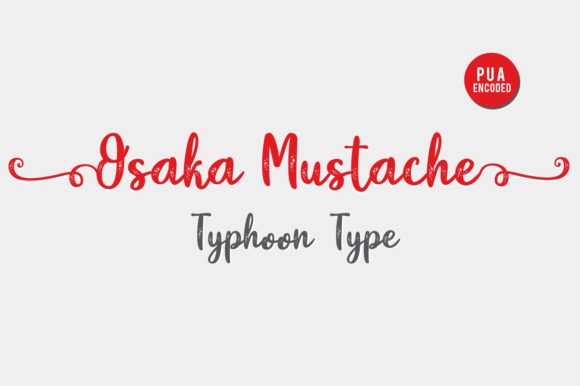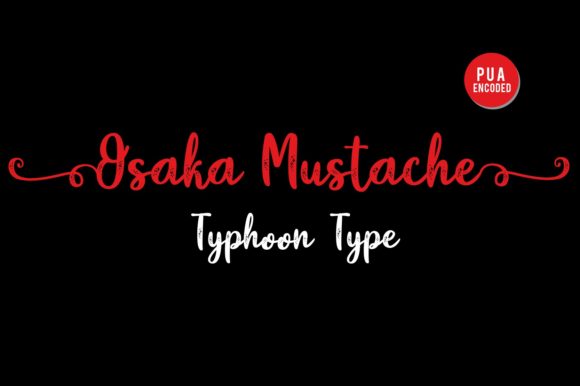
Osaka Mustache Font
About Osaka Mustache Font
Osaka Mustache is a stunning script font with an authentic twist. Use it to turn any creative project into a stand out!